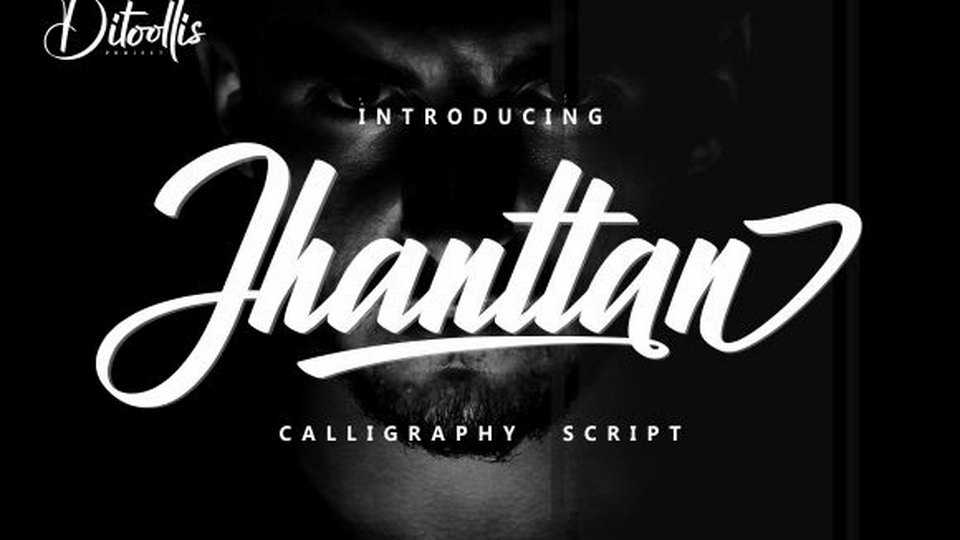
Download Jhanttan font a striking calligraphy script with a bold letters which are perfect to give your design a cool and attractive look. It’s great for logos, branding, lettering, merchandise and other design projects.
Designer: Ditoollis Project